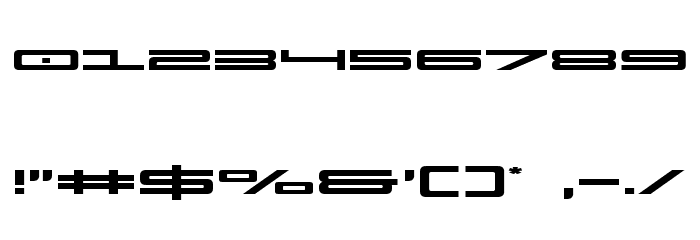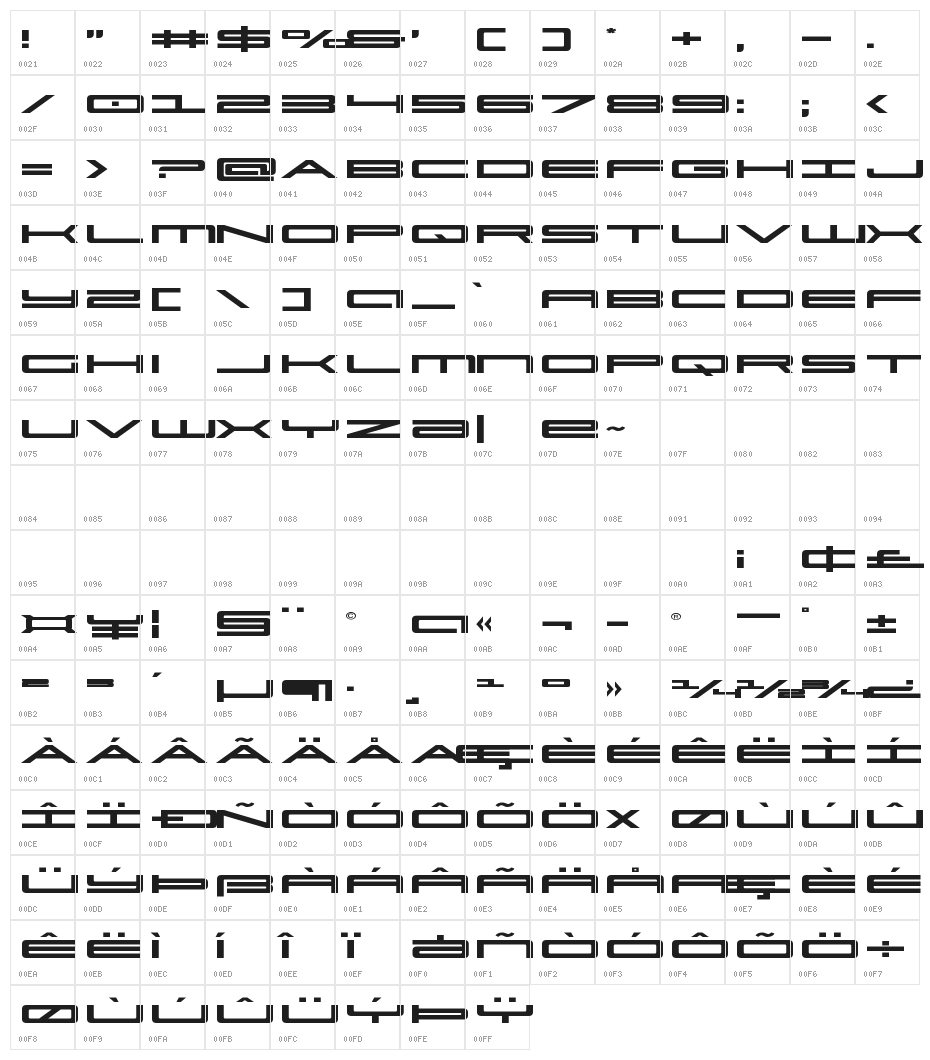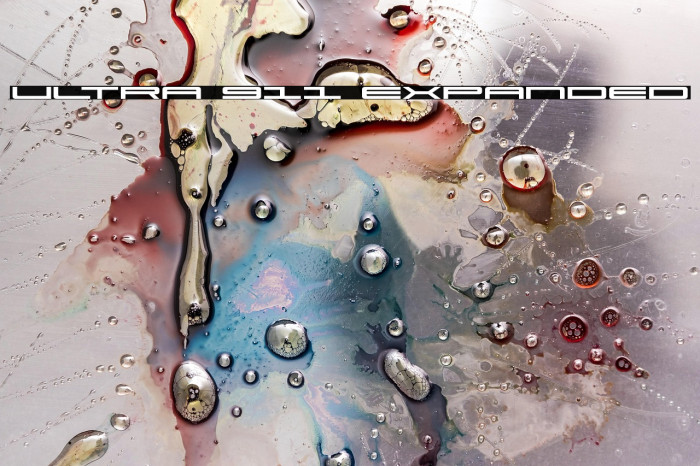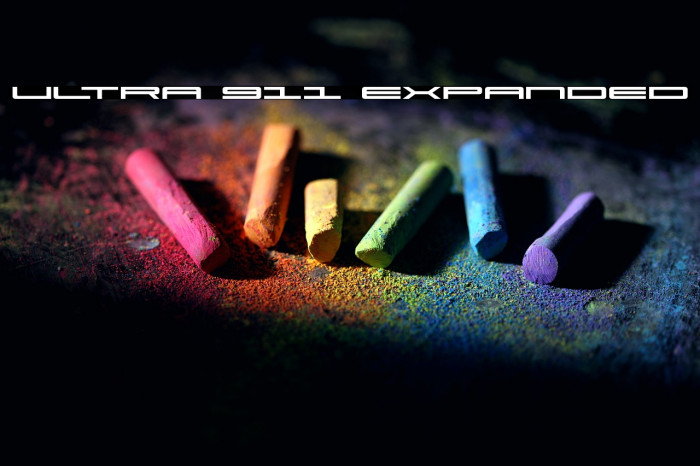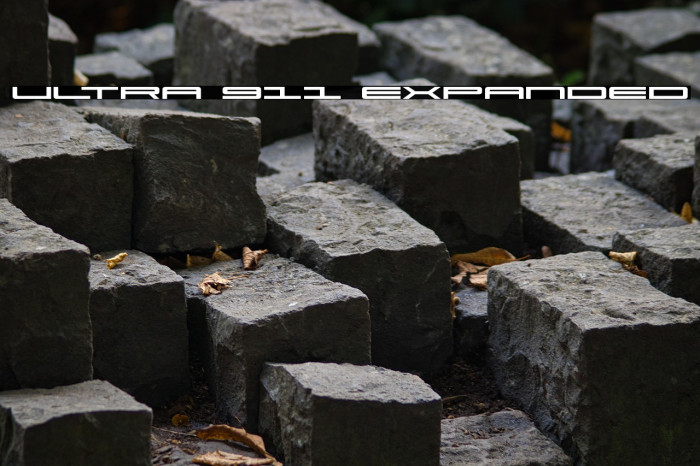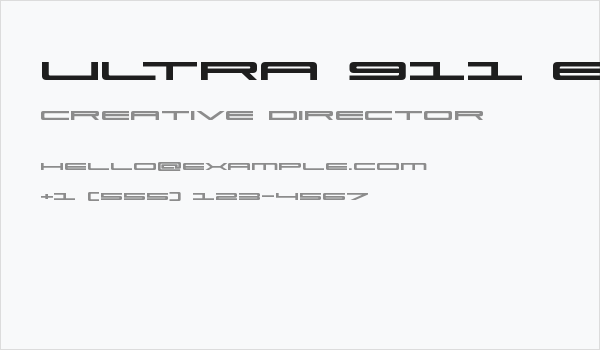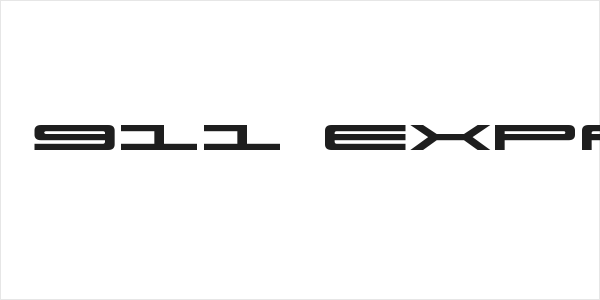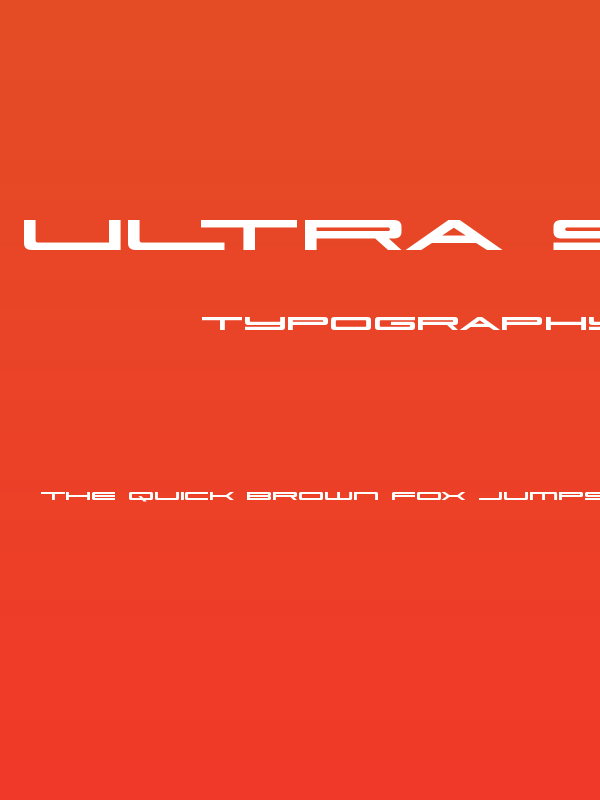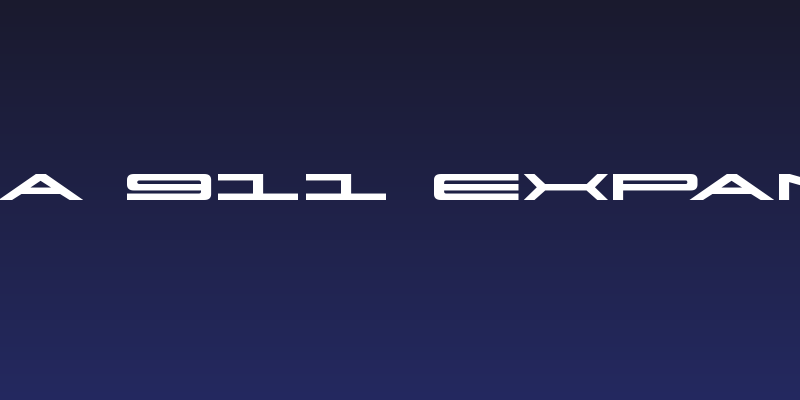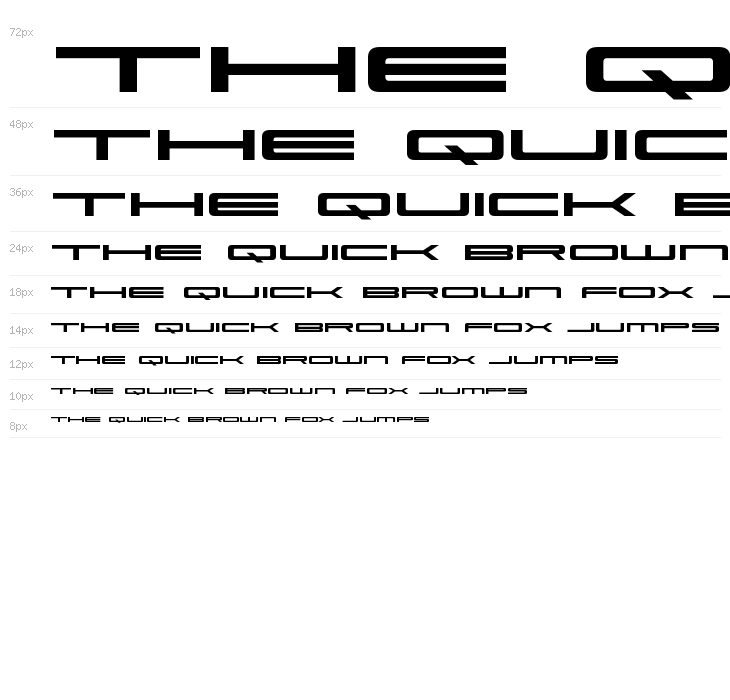
Ultra 911 Expanded Font
Ultra 911 Expanded Description
This font features a futuristic and geometric design, characterized by its sharp angles and clean lines. The uppercase and lowercase letters maintain a consistent style, with a focus on symmetry and precision. The numerals and special characters follow the same design principles, ensuring uniformity across all glyphs. The font's expanded width gives it a bold presence, making it ideal for attention-grabbing headlines or modern branding projects. Its sleek and contemporary appearance is well-suited for technology-related themes or any project that requires a cutting-edge aesthetic.
| Proposed Projects | Ideal for technology branding, sci-fi themes, modern advertising, and digital interfaces. |